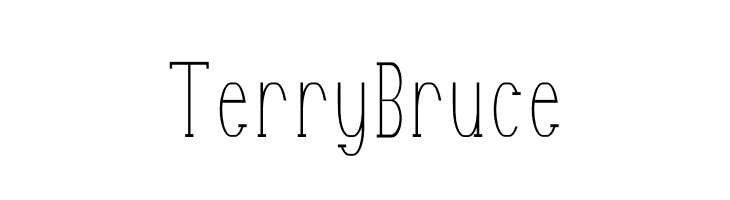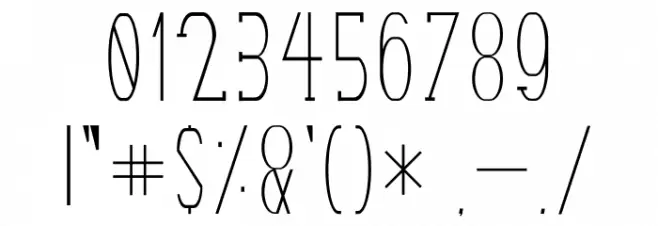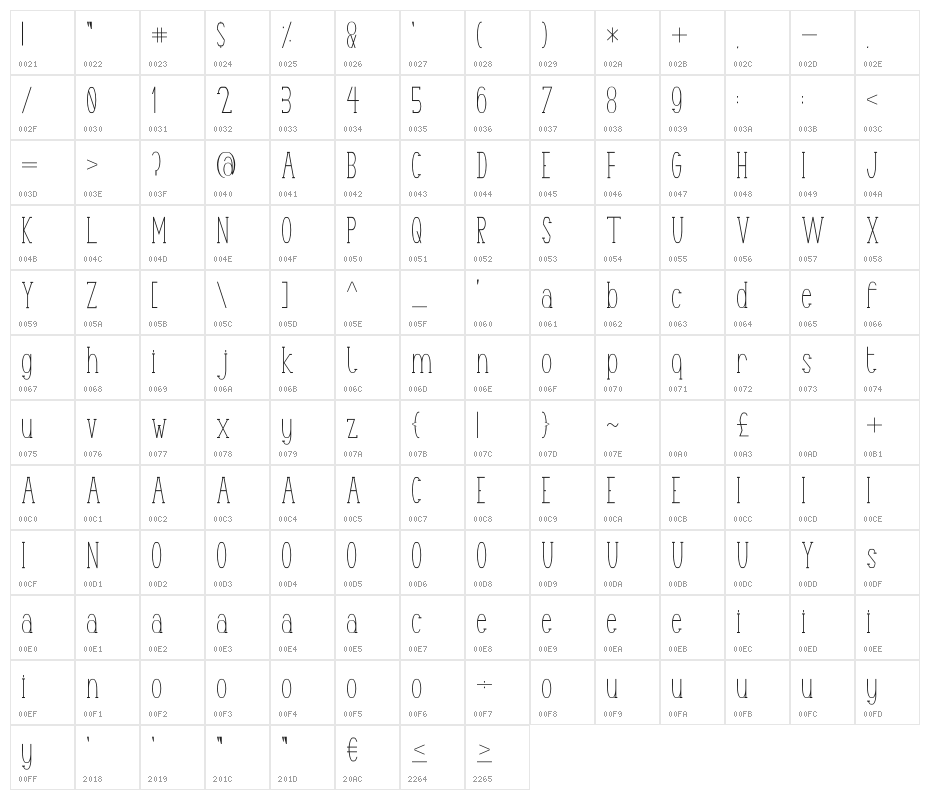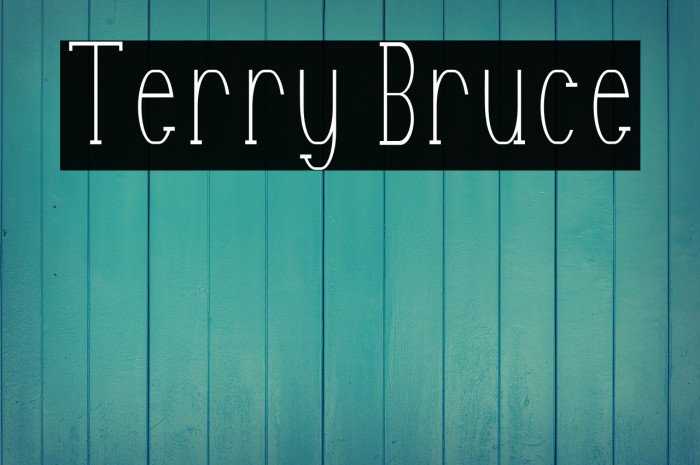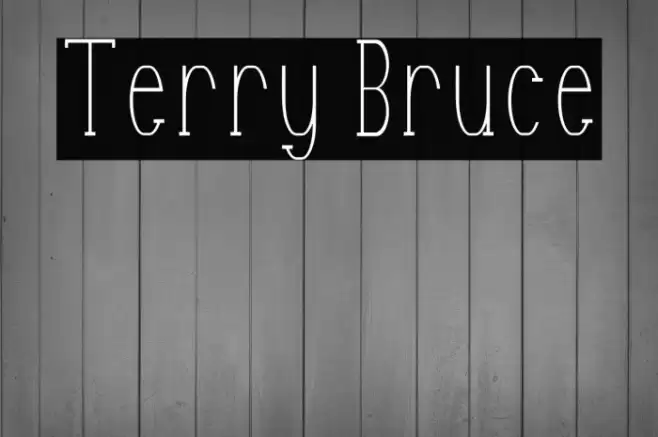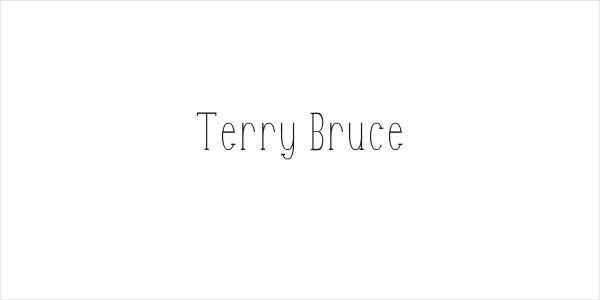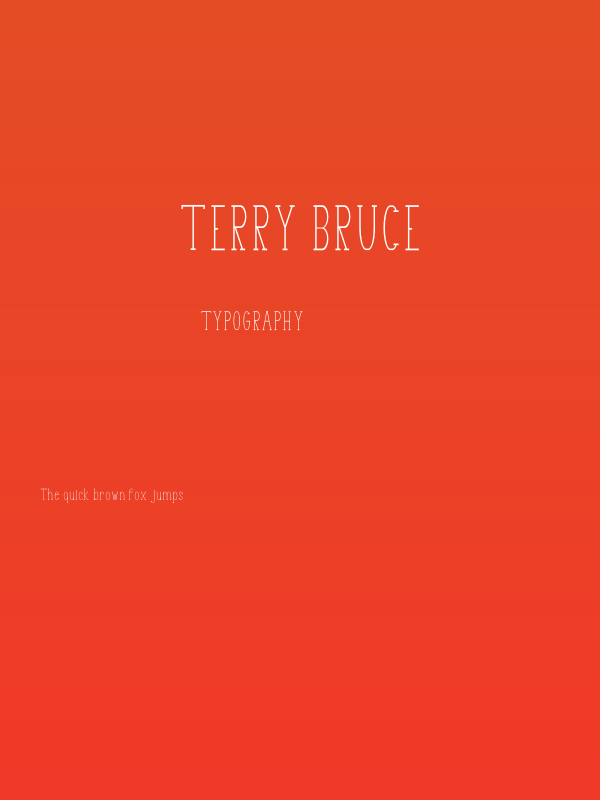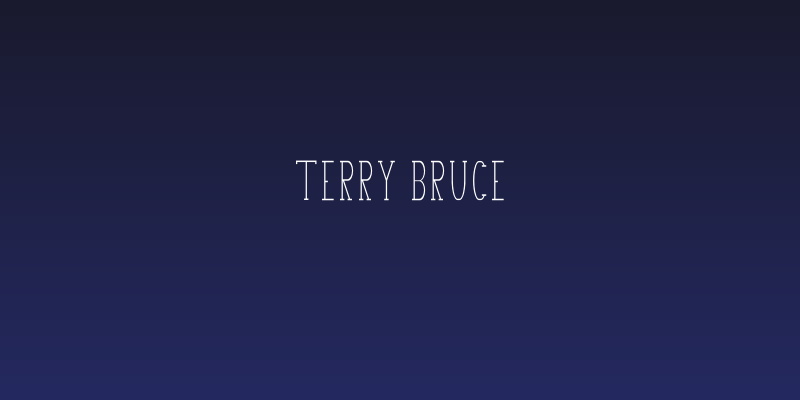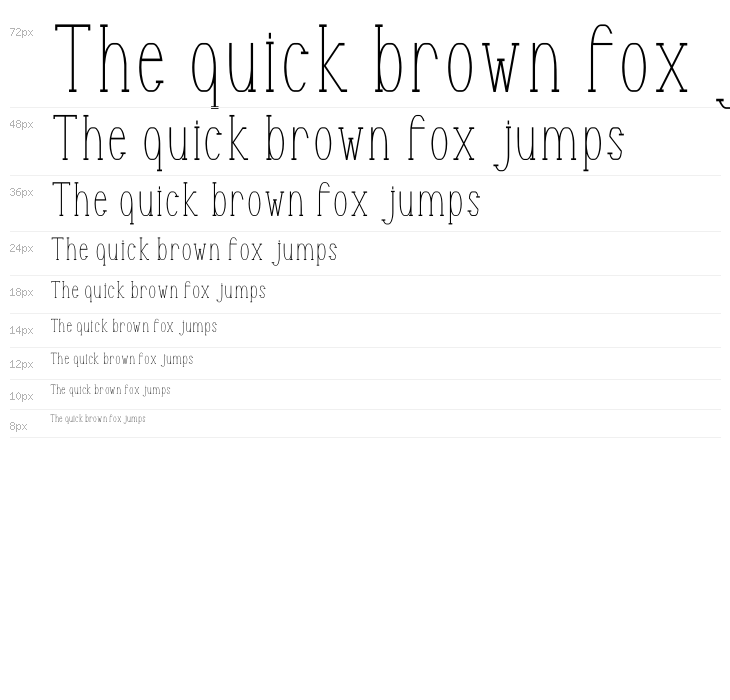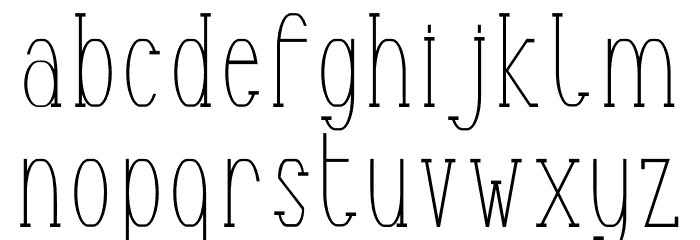
Terry Bruce Font
Terry Bruce Description
This font features a tall, slender design with a modern and minimalistic aesthetic. The characters are elongated with a consistent stroke width, giving it a clean and elegant appearance. The uppercase letters are particularly narrow, while the lowercase letters maintain a slightly wider form, providing a subtle contrast. The numerals are uniform and align well with the overall style. Special characters are included, maintaining the same thin, elongated structure. This font's simplicity and clarity make it versatile for various design applications.